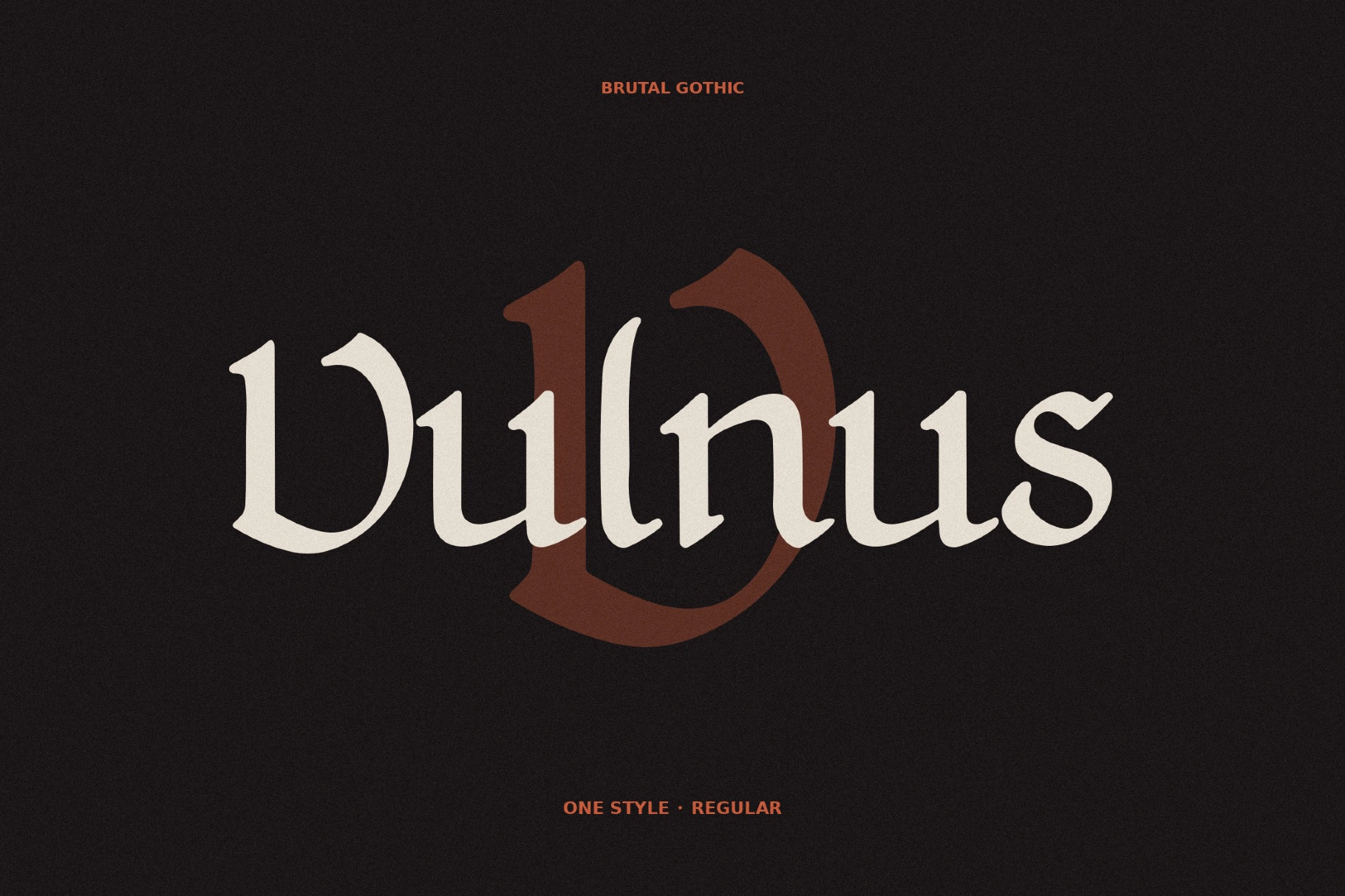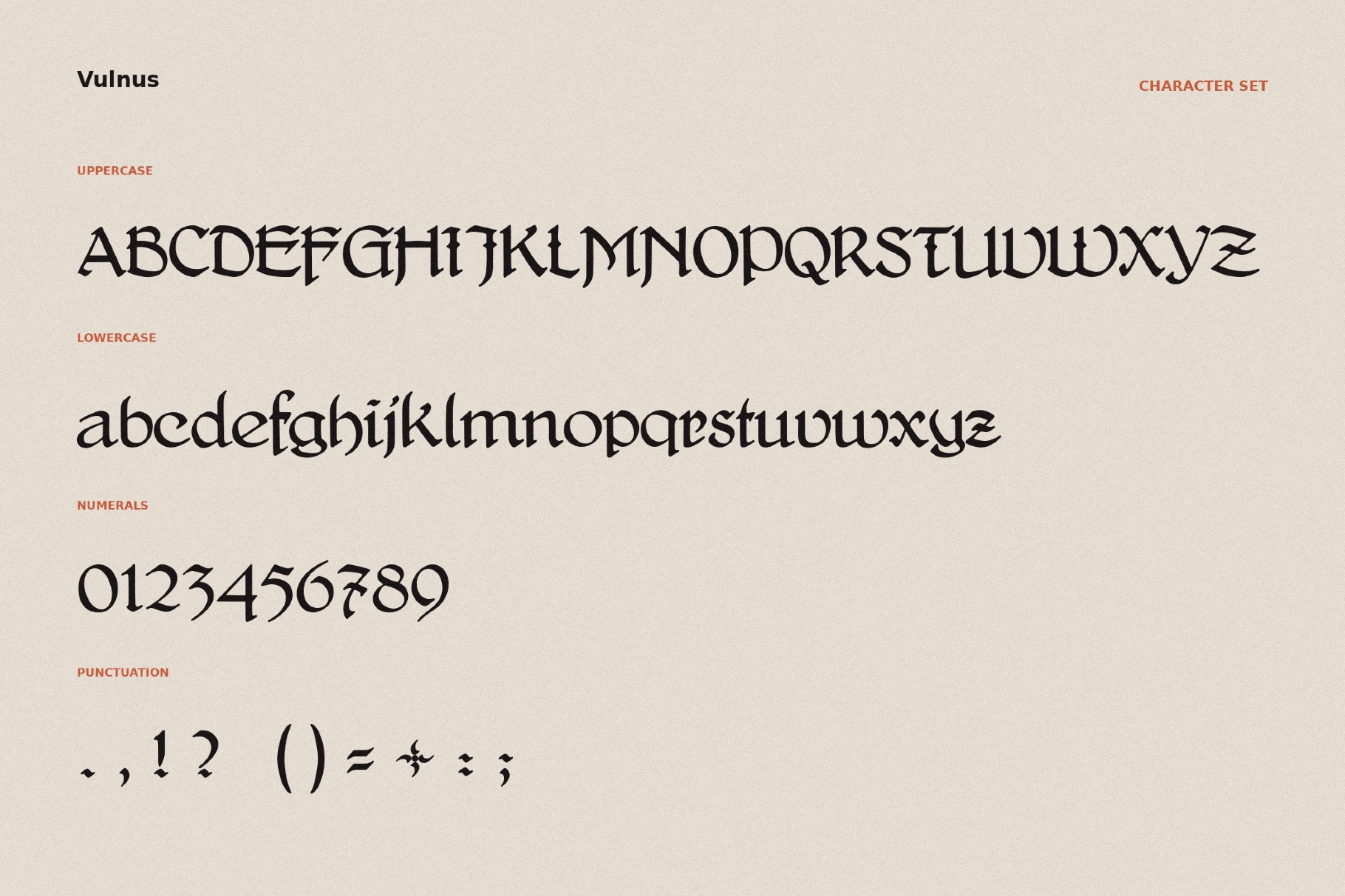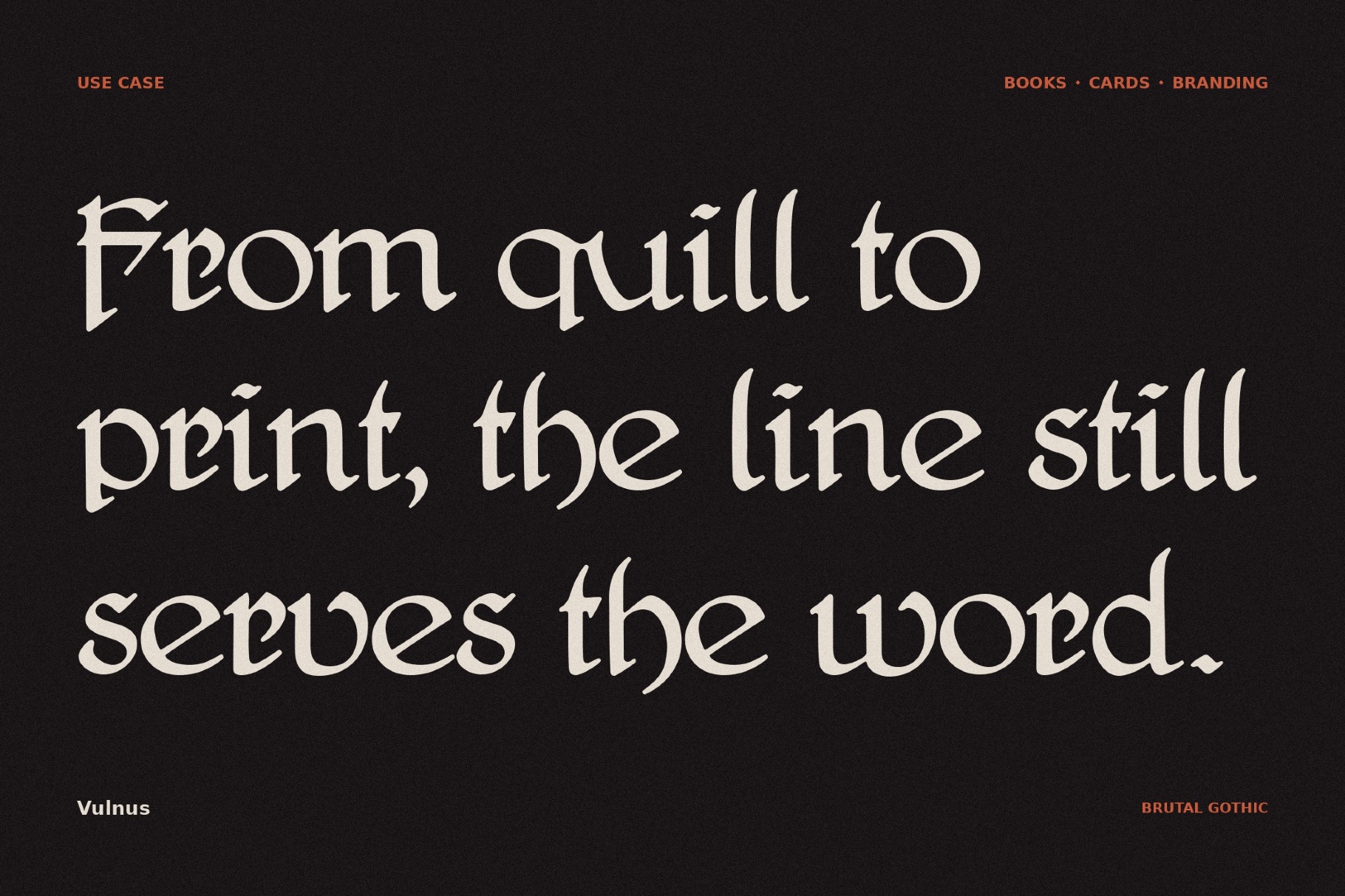
Vulnus - Fantasy Manuscript Font
Soft contrast and decorative swashes lend Vulnus the poise of a title pulled from a Renaissance volume, carefully printed and ornate. Its medieval serif base with calligraphic movement fits wedding stationery, fantasy covers, wine labels, museum graphics, boutique identities, ceremonial invitations, editorial openers, luxury packaging, and cultural posters.
- uppercase and lowercase letters;
- numbers, punctuation, and symbols;
- multilingual support across the extended Latin script;
- ligatures and stylistic alternatives.